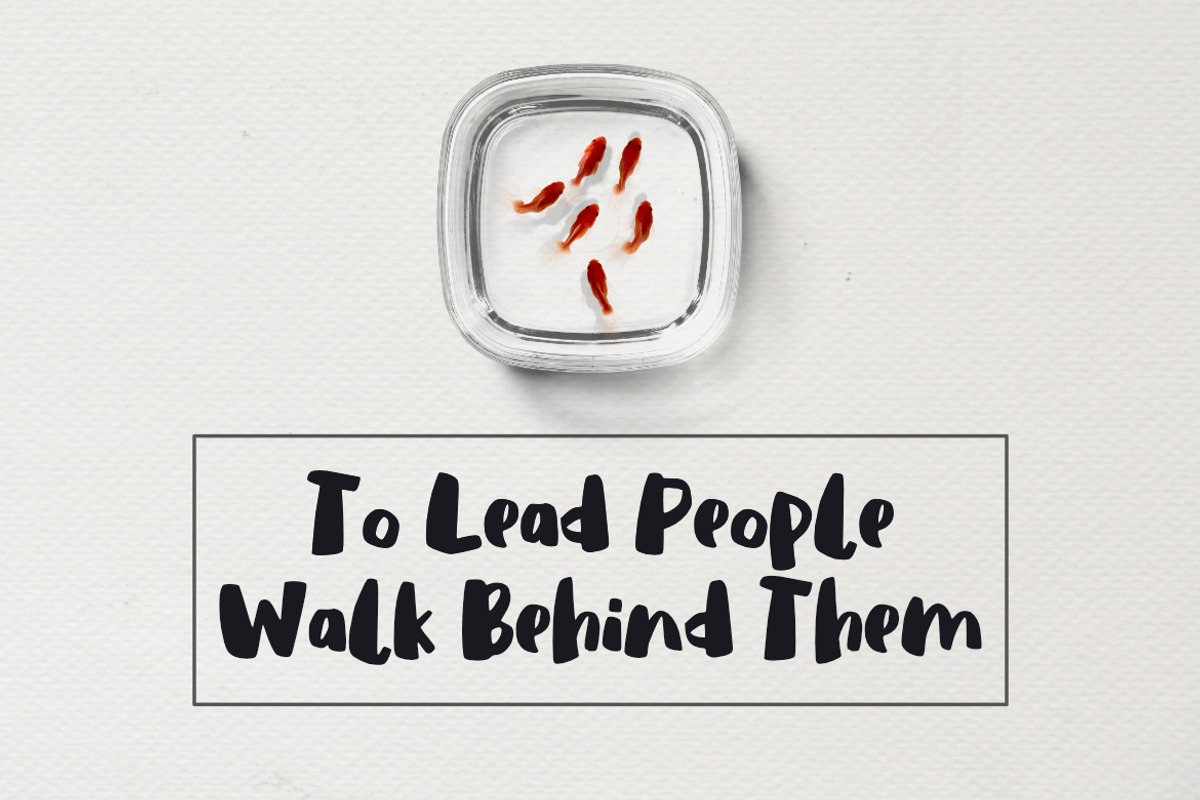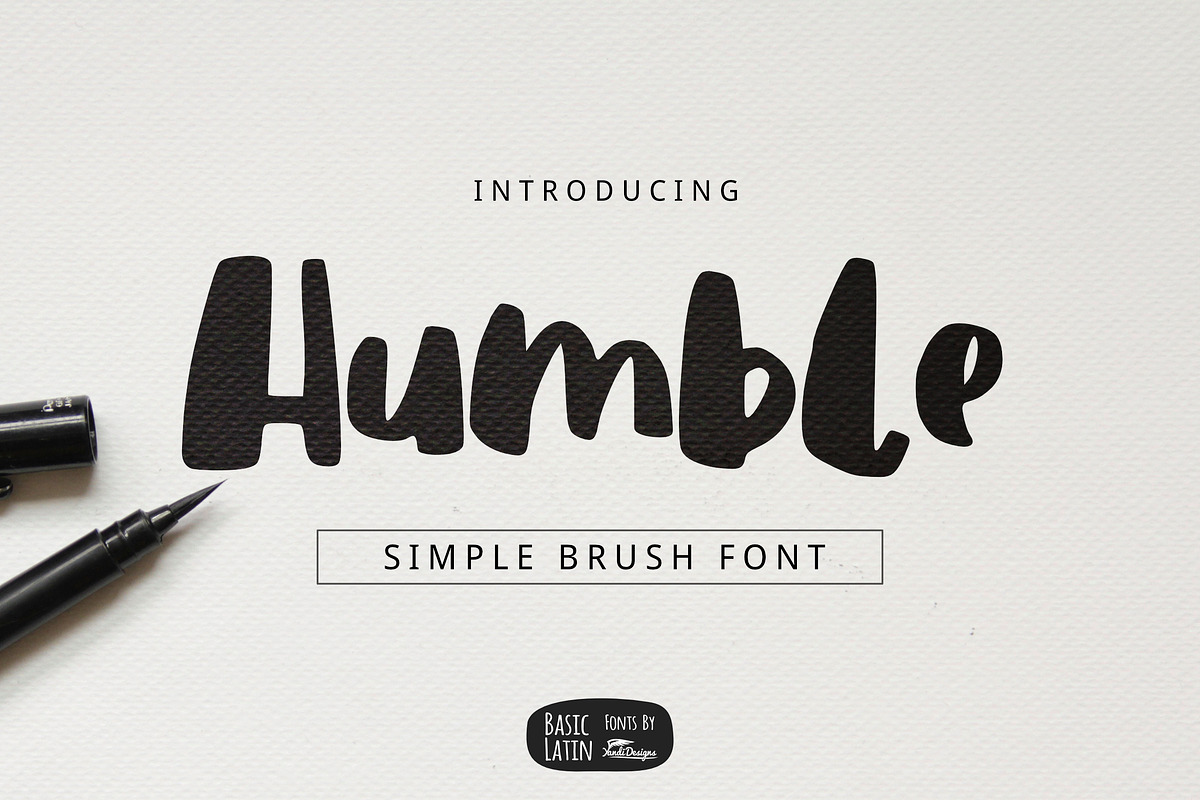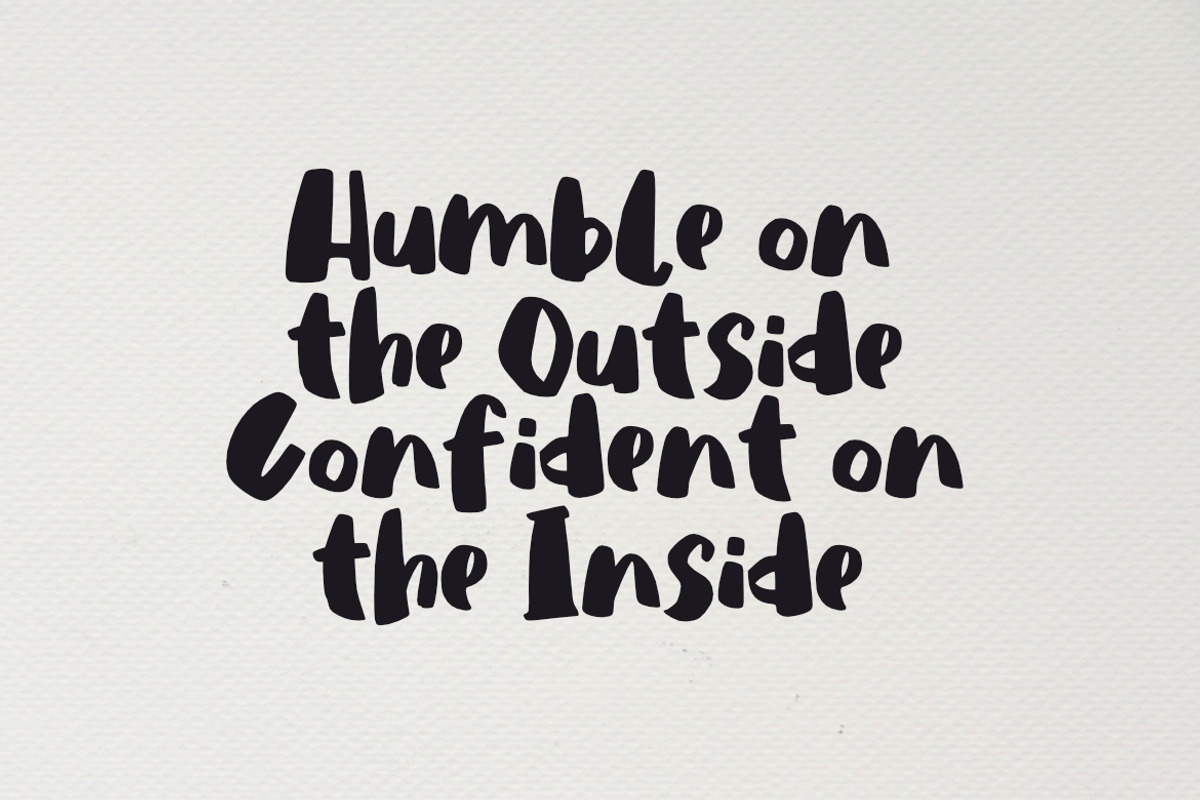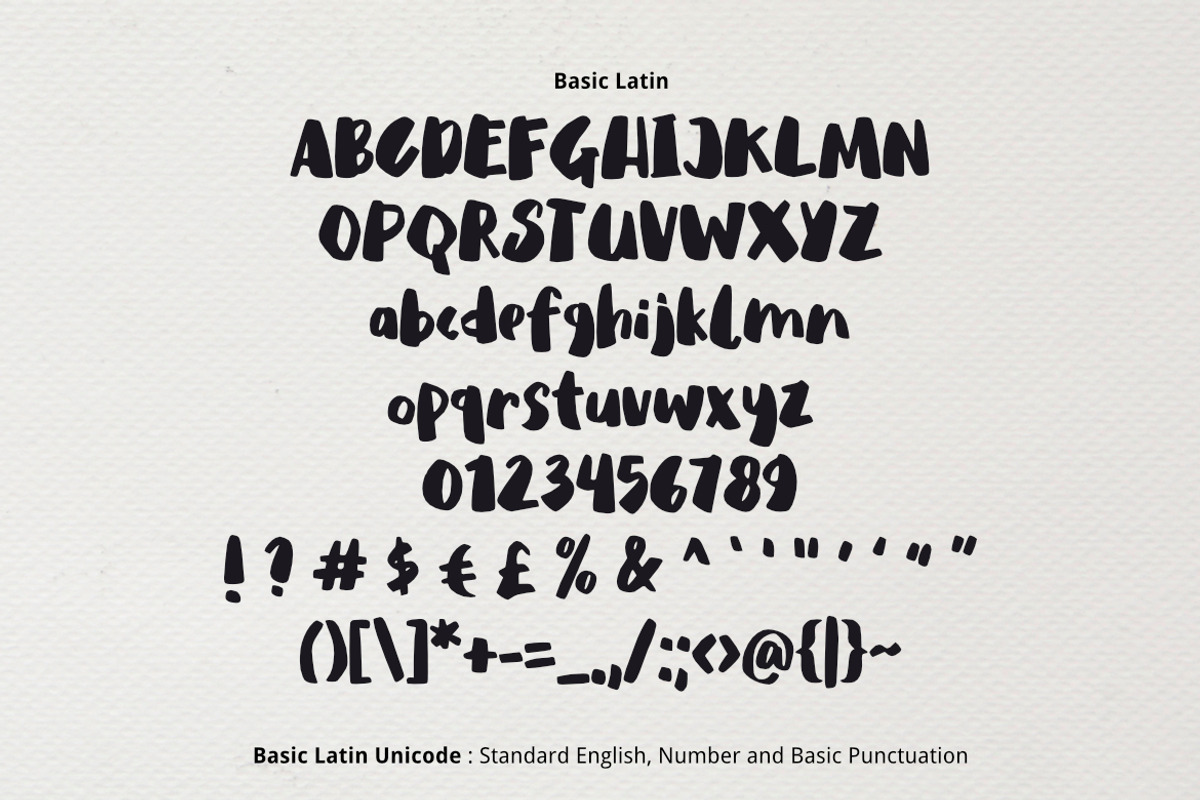
Humble Brush Font
Humble font is simple cute multipurpose handmade brush font , suitable for many project children book, quotes, logo , heading , title etc.
Why Humble Brush Font is worth a look
Humble Brush Font by YandiDesigns fits naturally into Branding, posters, packaging, typography.